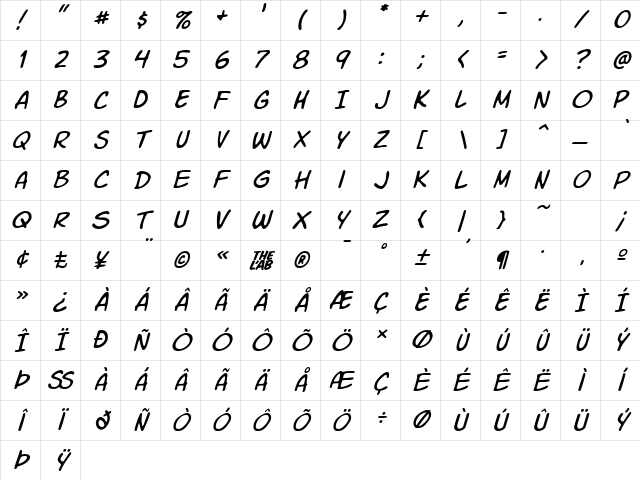
Komika Slim Italic Free Font
Komika Slim Italic
Designer: WolfBainX & Apostrophe
Complete Komika Slim Italic glyph index. Displaying only characters natively supported by Komika Slim Italic font.
Design Context for Komika Slim
Komika Slim is a composed and adaptable typeface that performs quietly and consistently across a wide range of design contexts. The slanted form adds forward momentum and visual energy.
Pro Tip: Use Komika Slim for emphasis, pull quotes, and subheadings where its slanted energy can add rhythm to the layout.